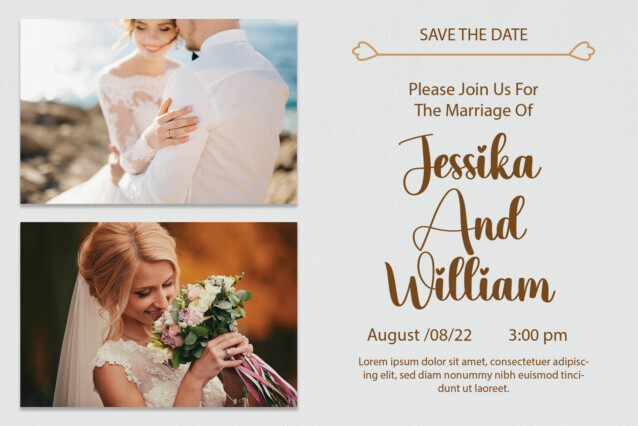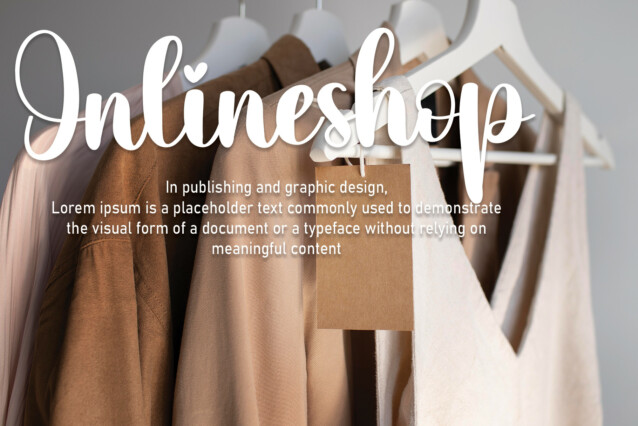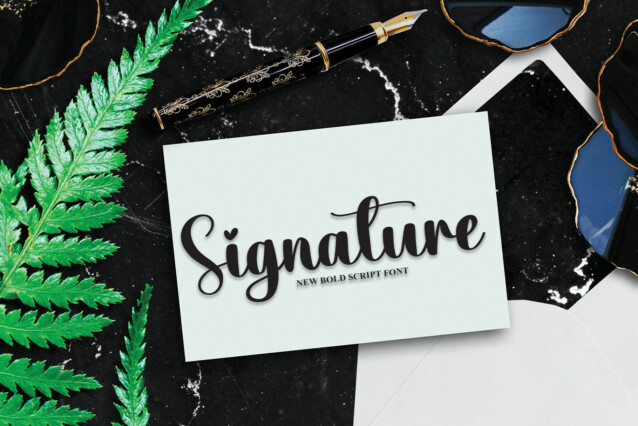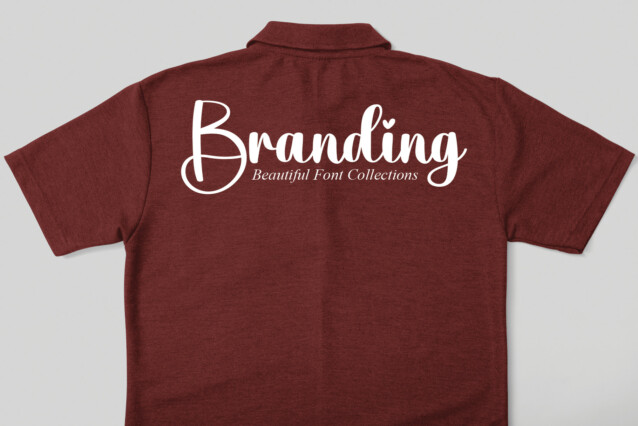
Bath Script Font
Bath Script Font is a modern handwritten font. Its latest style letters are perfect for wall displays, wedding invitations, social media post logos, advertisements, product packaging, product designs, labels, photography, watermarks, invitations, stationery, and any project that requires handwritten typography.